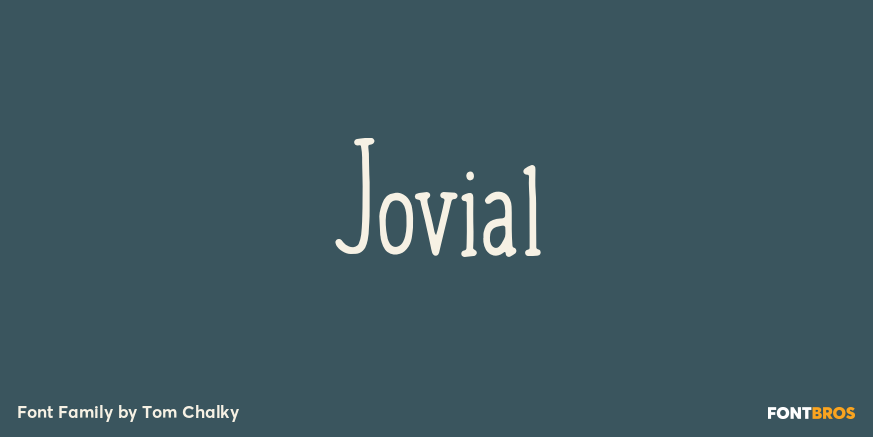
Jovial
About Jovial
Introducing the handcrafted Jovial Font Family (6 fonts!). Jovial was designed to be friendly, fun, quirky and eye catching. Jovial is available in both Serif and Sans-Serif, each coming with three weights: Light, Regular and Bold. Bonus Design Elements…